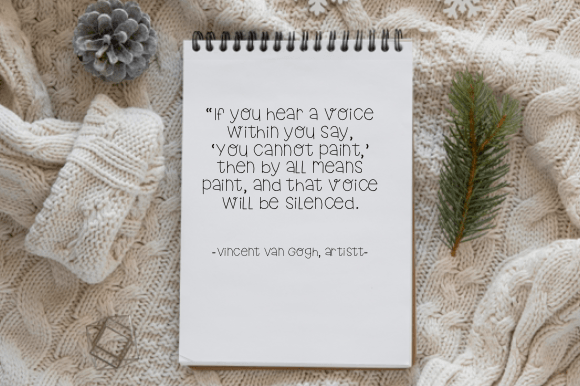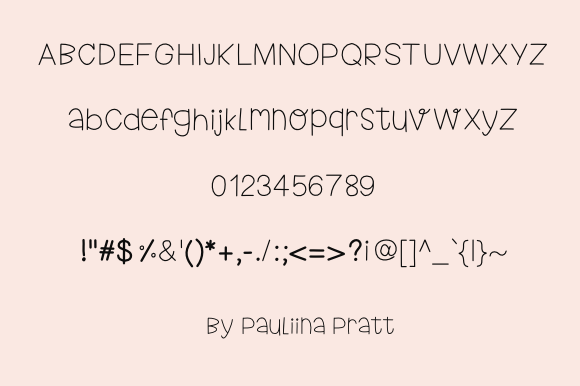
Wednesday Font
About Wednesday Font
Wednesday is a cute handwriting font. It has beautiful and well-balanced characters which makes it suitable for a wide range of crafty ideas.